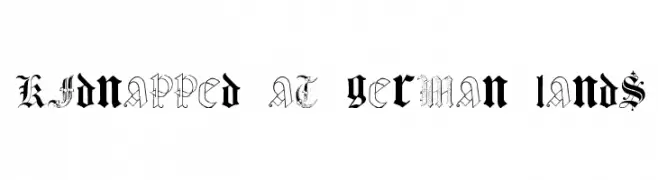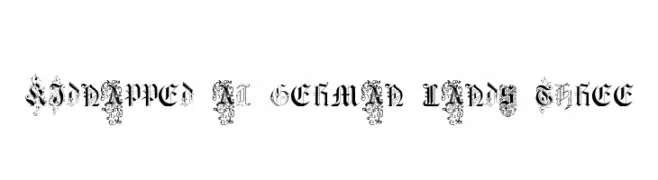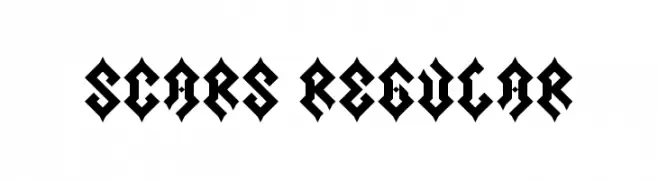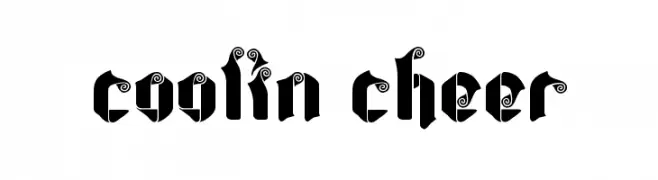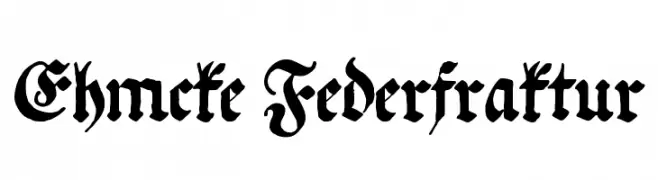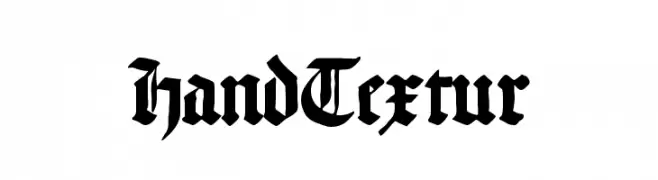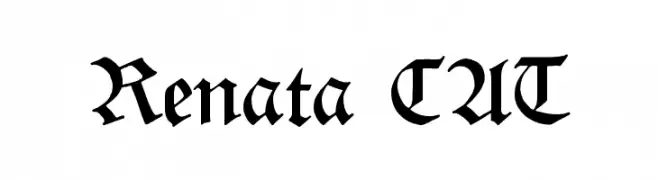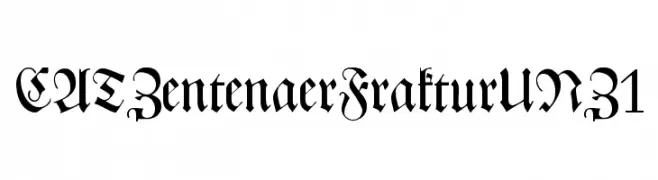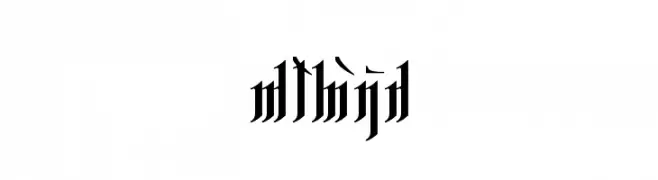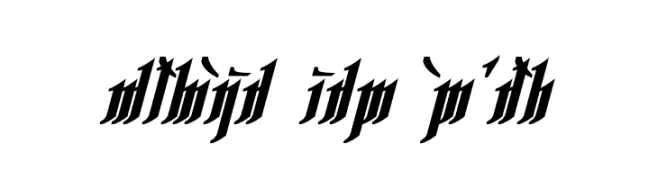
A decorative blackletter font with intricate flourishes and a historical feel.
A bold, angular blackletter font with a modern twist.
An ornate Blackletter font with intricate, medieval-inspired designs.
A bold, angular Blackletter-inspired font with a modern edge.
A bold, angular font with a modern blackletter style.
A bold blackletter font with intricate decorative swirls.
A bold, gothic blackletter font with ornate detailing and sharp angles.
A bold and ornate blackletter font with intricate details and historical elegance.
An ornate Blackletter font with intricate, gothic-inspired letterforms.
A bold, classic blackletter font with intricate and dramatic strokes.
A classic blackletter font with ornate, medieval-inspired design.
A decorative blackletter font with intricate, Gothic-inspired letterforms.
A bold, ornate blackletter font with a medieval aesthetic.
A bold, ornate blackletter font with medieval-inspired design.
A traditional Blackletter font with ornate, medieval-inspired design.
A traditional blackletter font with ornate, angular letterforms and a decorative style.
A bold, blackletter font with angular strokes and medieval flair.
A bold, distressed blackletter font with a gothic and textured style.
A bold, blackletter-style font with dramatic, angular strokes and ornate detailing.
A bold, gothic-style font with a blackletter influence.
A bold blackletter font with a medieval, ornate style.
A bold, ornate blackletter font with intricate, gothic-style letterforms.
An ornate Blackletter-style font with decorative flourishes and bold, angular characters.
A bold, blackletter-inspired font with a dramatic and gothic style.
An ornate, blackletter-inspired font with intricate detailing and high contrast.